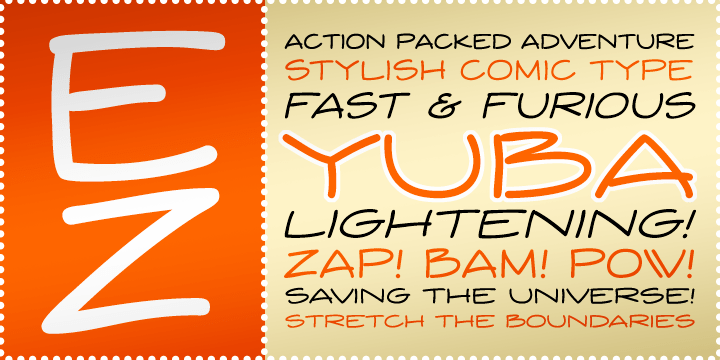
Yuba BTN
Yuba is a dynamic, straighforward, all-caps, comic-style typeface, complete with regular and expanded variants with their respective bold weights. It\’s a simple typestyle with a powerful appeal, perfect for comics, children\’s books, labeling, scrapbooking,…